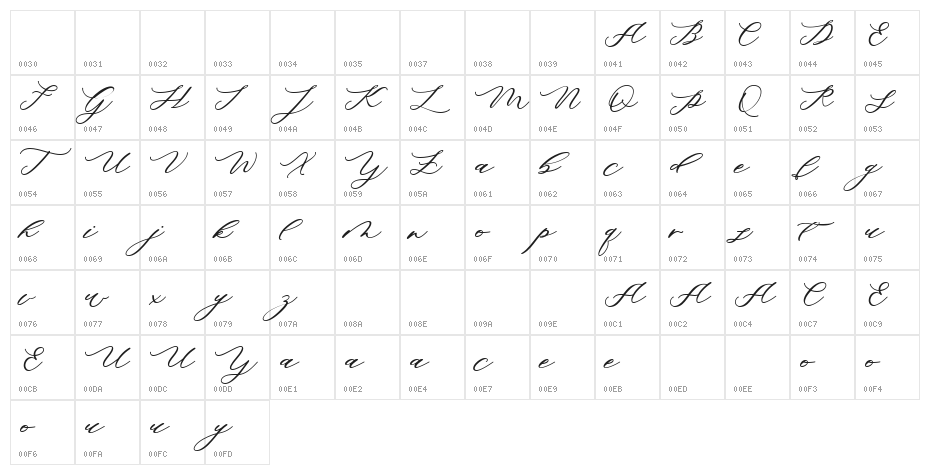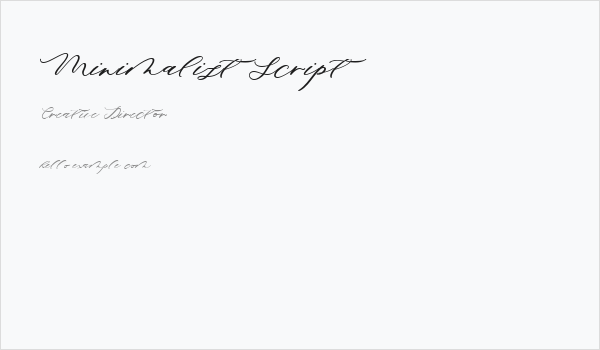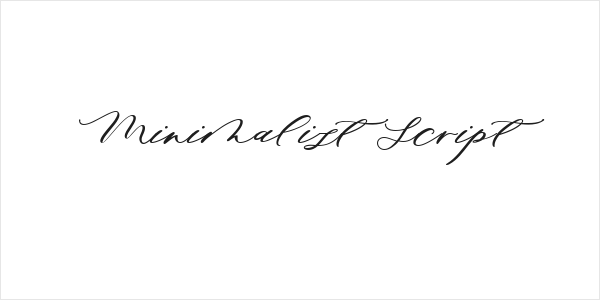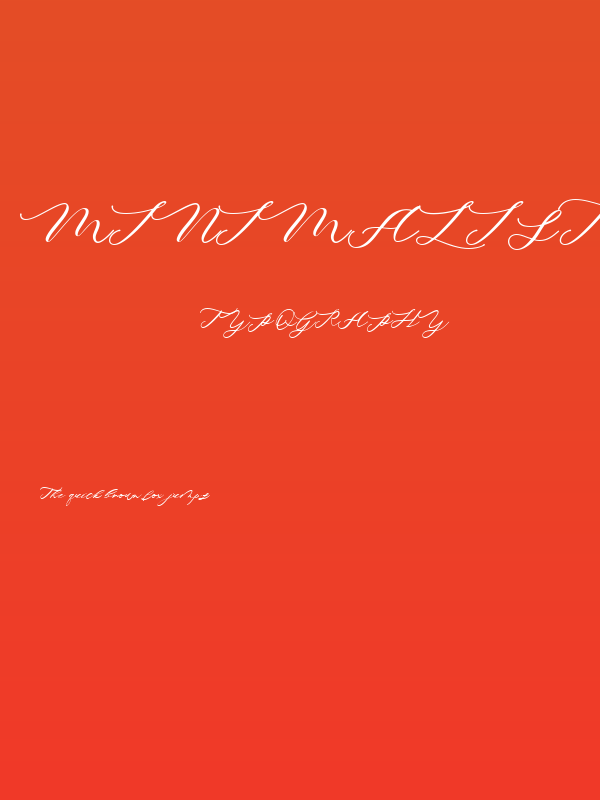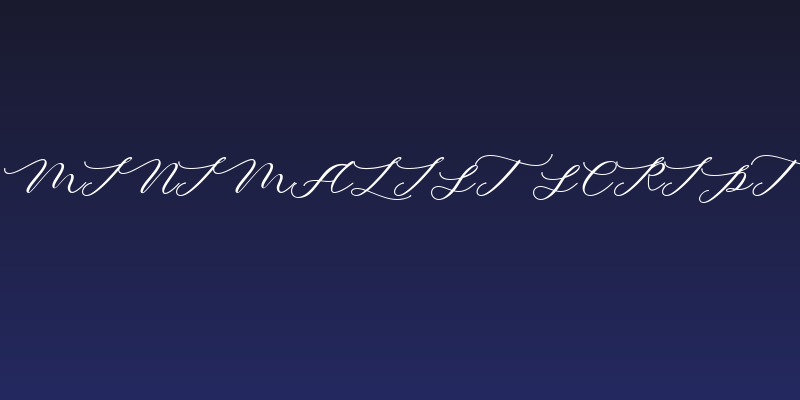
Minimalist Script Font
Minimalist Script Description
This elegant script font features a flowing, cursive style with smooth, continuous strokes that create a sense of fluidity and grace. The uppercase letters are characterized by their intricate loops and swirls, adding a touch of sophistication and charm. The lowercase letters maintain a consistent flow, with each character seamlessly connecting to the next. This font exudes a sense of elegance and refinement, making it ideal for formal invitations, branding, and decorative purposes. The overall design is both classic and timeless, with a modern twist that makes it versatile for various applications.
| Overall Style | Elegant, Classic |
| Use Case | Invitations, Branding, Decorative |
| Proposed Projects | Ideal for wedding invitations, elegant branding, decorative signage, and formal stationery. |